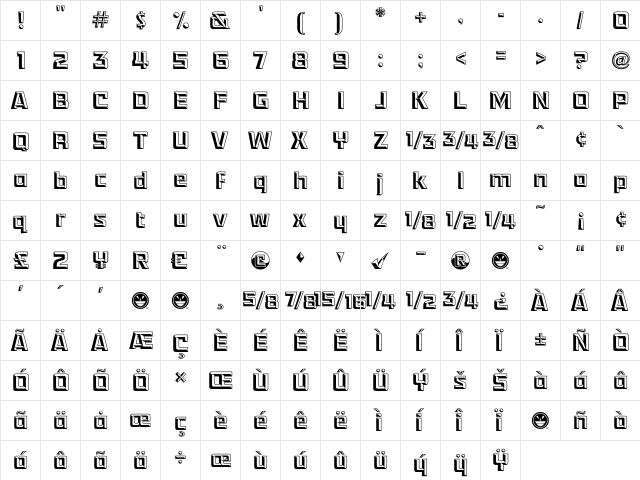
RACE1 Eternals Chiseled Normal
Design Context for RACE1 Eternals Chiseled Typeface
RACE1 Eternals Chiseled is a composed and adaptable typeface that performs quietly and consistently across a wide range of design contexts.